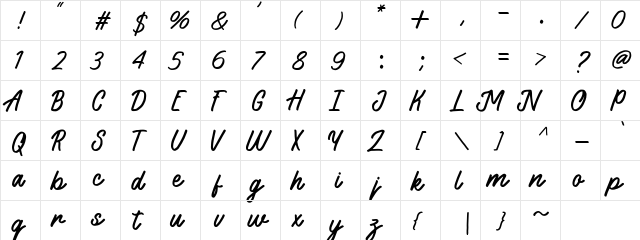
Sloutthy Regular
Design Context for Sloutthy Typeface
Sloutthy is a composed and adaptable typeface that performs quietly and consistently across a wide range of design contexts.